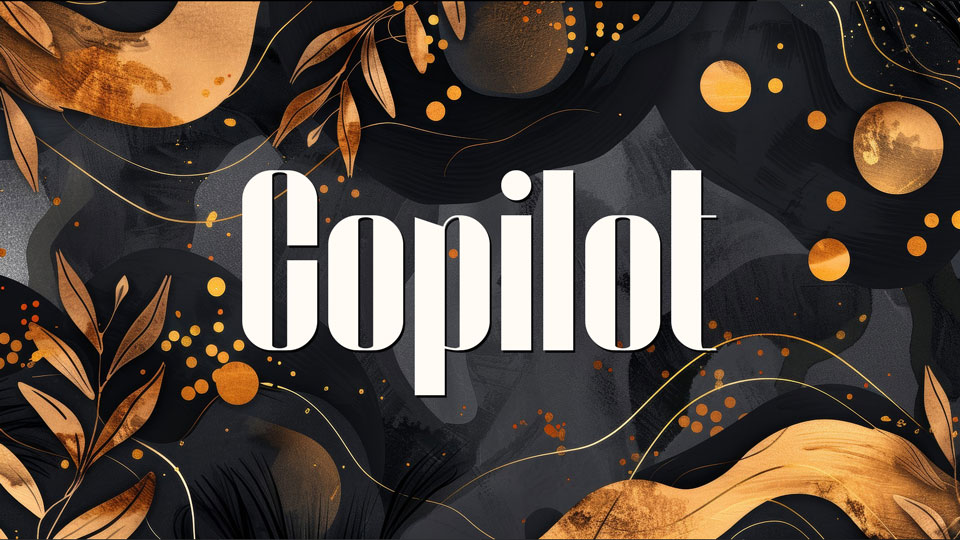
Copilot is a condensed serif display font with tall upright proportions and a strong vertical rhythm. Its letterforms combine heavy straight stems with thin internal strokes, narrow counters, and compact spacing, giving words a dense, poster-like texture. The serifs are restrained and mostly squared, while rounded characters keep a soft vertical curve rather than a fully geometric shape. Its high-contrast structure works best at larger sizes, where the narrow forms remain clear. Copilot suits titles, editorial headings, labels, packaging, signage, and decorative branding that needs a formal but slightly retro display tone.